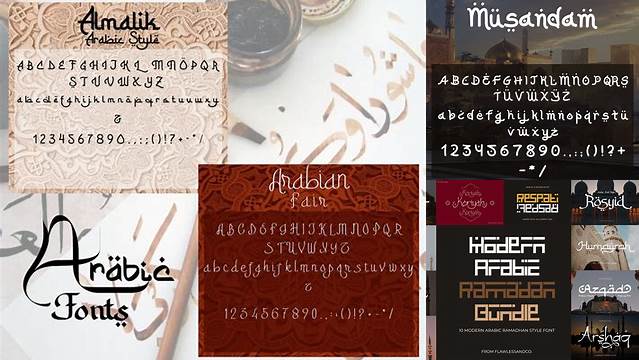
Arabic Fonts For Procreate: Free Downloads & Install Guide
Hey guys! Ever wanted to add that perfect Arabic calligraphy touch to your Procreate masterpieces? You're in the right place! This guide will walk you through everything you need to know about finding, downloading, and installing gorgeous Arabic fonts for Procreate. Get ready to elevate your digital art game!
1. Understanding Arabic Fonts and Procreate Compatibility
2. Where to Find Free Arabic Fonts for Procreate
Okay, let’s talk freebies! Finding quality free Arabic fonts for Procreate can feel like searching for a needle in a haystack, but trust me, they're out there! Websites like Google Fonts, Font Squirrel, and various independent font foundries often offer selections of Arabic fonts that are free for personal or even commercial use. Make sure to carefully check the license agreement for each font to understand its usage restrictions. When browsing these sites, use keywords like "Arabic calligraphy font free download" or "free Arabic script fonts" to narrow down your search. Keep an eye out for fonts that support OpenType features, as these often include advanced typographic options like ligatures and alternate glyphs, which can enhance the beauty and authenticity of your Arabic text. Don't hesitate to explore online design communities and forums, as members often share links to free fonts they've discovered. Participating in these communities can also provide valuable feedback on your font choices and artwork. Be cautious when downloading fonts from unfamiliar websites, as they may contain malware or viruses. Always scan downloaded files with a reputable antivirus program before opening them. Consider creating a dedicated folder on your device to store all your downloaded fonts, making it easier to organize and access them in Procreate.
3. Top Websites for Downloading Premium Arabic Fonts
Sometimes, free just doesn't cut it, right? For truly unique and professional-looking designs, investing in premium Arabic fonts can be a game-changer. Sites like MyFonts, Adobe Fonts, and Linotype offer a vast library of high-quality Arabic fonts, often designed by renowned typographers. While these fonts come at a cost, they typically offer superior quality, broader character sets, and more comprehensive licensing options. When choosing a premium Arabic font, consider its overall aesthetic, readability, and suitability for your specific project. Pay attention to details like kerning, hinting, and character spacing, as these factors can significantly impact the visual appeal of your text. Many premium font foundries offer trial versions or sample characters, allowing you to test the font before committing to a purchase. Take advantage of these opportunities to ensure the font meets your expectations and integrates seamlessly with Procreate. Don't forget to factor in the cost of the font license when budgeting for your design projects. Premium Arabic fonts can be a worthwhile investment, but it's essential to understand the terms of the license agreement and ensure it aligns with your intended use. Explore different font styles and weights to find the perfect match for your creative vision.
6. Best Practices for Using Arabic Calligraphy Fonts in Procreate
Using Arabic calligraphy fonts in Procreate can add a touch of elegance and authenticity to your artwork. However, there are a few best practices to keep in mind. First, choose a font that complements your overall design. Consider the font's style, weight, and readability. Experiment with different font sizes and colors to find the perfect balance. Pay attention to kerning and letter spacing, as these factors can significantly impact the visual appeal of your text. Procreate offers various text editing tools that allow you to adjust these settings. When using Arabic calligraphy fonts, be mindful of cultural sensitivities. Ensure your text is accurate and respectful of the Arabic language and culture. Avoid using fonts in a way that could be considered offensive or inappropriate. Seek feedback from native Arabic speakers to ensure your text is properly translated and conveys the intended message. Practice your calligraphy skills regularly to improve your understanding of letterforms and spacing. Study the work of renowned Arabic calligraphers for inspiration. Consider taking online courses or workshops to learn more about Arabic calligraphy techniques.
7. Exploring Different Styles of Arabic Fonts
Arabic fonts come in a dazzling array of styles, each with its own unique character and history. From the bold geometric forms of Kufic to the flowing curves of Naskh, there's an Arabic font to suit every taste and project. Kufic fonts are known for their angular shapes and strong visual presence, making them ideal for headings and logos. Naskh fonts are more rounded and legible, making them suitable for body text and longer passages. Thuluth fonts are characterized by their elaborate flourishes and decorative elements, making them perfect for ceremonial documents and artistic compositions. Diwani fonts are known for their elegant curves and calligraphic flair, adding a touch of sophistication to any design. Explore different Arabic font styles to discover the ones that resonate with your creative vision. Consider the historical context and cultural significance of each font style to ensure it aligns with your intended message. Experiment with combining different font styles to create visual contrast and interest. Use online resources and design communities to learn more about the nuances of Arabic font styles.
8. Creating Custom Arabic Typography in Procreate
Want to take your Arabic typography to the next level? Procreate offers a range of tools that allow you to create custom Arabic typography designs. Start by selecting a base Arabic font that you like. Then, use Procreate's drawing and editing tools to modify the letterforms, add decorative elements, and create unique ligatures. Experiment with different brush styles and textures to add depth and dimension to your typography. Use Procreate's layer system to build up your design in stages, allowing you to easily make adjustments and refinements. Consider using reference images of Arabic calligraphy to guide your design process. Pay attention to the principles of Arabic calligraphy, such as balance, rhythm, and harmony. Practice your typography skills regularly to improve your understanding of letterforms and spacing. Seek feedback from experienced typographers to refine your designs. Don't be afraid to experiment and push the boundaries of traditional Arabic typography.
9. Using Arabic Fonts for Logos and Branding in Procreate
Arabic fonts can be a powerful tool for creating unique and memorable logos and branding materials. When designing a logo with an Arabic font, consider the overall message and identity of your brand. Choose a font that reflects your brand's values and personality. Experiment with different font sizes, weights, and colors to create a visually appealing logo. Pay attention to kerning and letter spacing to ensure the logo is legible and balanced. Consider incorporating Arabic calligraphy elements into your logo to add a touch of authenticity and cultural relevance. Use Procreate's drawing and editing tools to customize the font and create a unique logo design. Seek feedback from potential customers to ensure the logo resonates with your target audience. Create a style guide that outlines the proper use of your Arabic font logo across different media. Use your Arabic font logo consistently in all your branding materials to build brand recognition and loyalty.
10. Designing Arabic Posters and Flyers with Procreate Fonts
Procreate is an excellent tool for designing Arabic posters and flyers that grab attention and convey your message effectively. When designing a poster or flyer with an Arabic font, consider the overall layout and composition. Choose a font that is legible and visually appealing. Use a combination of different font sizes and styles to create visual hierarchy. Incorporate eye-catching graphics and images to enhance the poster's impact. Use Procreate's layer system to organize your design elements and make adjustments easily. Pay attention to color contrast and readability to ensure your message is clear and easy to understand. Use Arabic calligraphy elements to add a touch of elegance and cultural relevance. Seek feedback from potential viewers to ensure the poster is effective and engaging. Print your poster or flyer at a high resolution to ensure it looks professional and crisp. Distribute your poster or flyer in strategic locations to reach your target audience.
11. Creating Arabic Social Media Graphics with Procreate Fonts
In today's digital world, social media graphics are essential for promoting your brand and engaging with your audience. Procreate makes it easy to create stunning Arabic social media graphics that stand out from the crowd. When designing a social media graphic with an Arabic font, consider the platform you're designing for. Each platform has its own unique dimensions and aspect ratios. Choose a font that is legible and visually appealing on small screens. Use a combination of different font sizes and styles to create visual hierarchy. Incorporate eye-catching graphics and images to capture attention. Use Procreate's layer system to organize your design elements and make adjustments easily. Pay attention to color contrast and readability to ensure your message is clear and easy to understand. Use Arabic calligraphy elements to add a touch of elegance and cultural relevance. Use relevant hashtags to increase the visibility of your social media graphic. Schedule your social media posts strategically to reach your target audience at the optimal time.
12. Arabic Font Licensing: What You Need to Know
Before you start using downloaded Arabic fonts in your projects, it's crucial to understand font licensing. Font licenses dictate how you can legally use a font. Some fonts are free for personal use but require a commercial license for business purposes. Other fonts have more restrictive licenses that limit how you can modify or redistribute them. Always read the font license agreement carefully before using a font. Pay attention to the terms and conditions related to commercial use, embedding, and modification. If you're unsure about the terms of a font license, contact the font designer or foundry for clarification. Using a font without the proper license can result in legal consequences. Keep records of all your font licenses for future reference. Consider using a font management tool to help you track your font licenses and usage.
13. Mixing Arabic and Latin Fonts in Procreate
Combining Arabic and Latin fonts in Procreate can create visually interesting and dynamic designs. However, it's important to do it carefully to ensure readability and visual harmony. Choose Arabic and Latin fonts that complement each other in terms of style, weight, and x-height. Pay attention to the overall balance and proportion of the text. Use a consistent baseline and cap height for both fonts. Avoid using too many different fonts in a single design. Use color and contrast to differentiate between the Arabic and Latin fonts. Consider using a grid system to align the text and create a sense of order. Seek feedback from others to ensure the design is legible and visually appealing. Experiment with different font combinations to find the perfect balance. Use online resources and design communities to learn more about typography principles.
14. The History and Evolution of Arabic Calligraphy
Arabic calligraphy is a rich and ancient art form with a fascinating history. It has evolved over centuries, with different styles and techniques emerging in various regions of the Arab world. The earliest form of Arabic calligraphy was Kufic, which was characterized by its angular shapes and geometric forms. Over time, other styles emerged, such as Naskh, Thuluth, and Diwani, each with its own unique characteristics. Arabic calligraphy has been used for a variety of purposes, including religious texts, poetry, and decorative arts. It has also played a significant role in preserving and transmitting Arabic culture and knowledge. Today, Arabic calligraphy continues to be a vibrant and evolving art form, with contemporary artists pushing the boundaries of tradition and innovation. Study the history of Arabic calligraphy to gain a deeper appreciation for its beauty and significance.
15. Understanding the Different Arabic Script Styles
Understanding the different Arabic script styles is essential for choosing the right font for your project. Each script style has its own unique characteristics and historical context. Kufic is characterized by its angular shapes and geometric forms. Naskh is more rounded and legible, making it suitable for body text. Thuluth is known for its elaborate flourishes and decorative elements. Diwani is distinguished by its elegant curves and calligraphic flair. Ruq'ah is a simplified and condensed script used for everyday writing. Understanding the nuances of each Arabic script style will help you choose the font that best reflects your design goals. Consider the historical context and cultural significance of each script style. Experiment with different script styles to find the ones that resonate with your creative vision. Use online resources and design communities to learn more about the different Arabic script styles.
16. Optimizing Arabic Text for Readability in Procreate
Ensuring that your Arabic text is readable in Procreate is crucial for effective communication. Pay attention to factors such as font size, kerning, and line spacing. Choose a font size that is appropriate for the viewing distance. Adjust the kerning to ensure that the letters are spaced evenly. Increase the line spacing to improve readability. Use a high contrast color combination to make the Arabic text stand out from the background. Avoid using too many decorative elements that can distract from the text. Seek feedback from others to ensure the Arabic text is legible and easy to understand. Use online tools to check the readability of your Arabic text. Consider the cultural context and target audience when optimizing Arabic text for readability.
17. Adding Shadows and Effects to Arabic Fonts in Procreate
Procreate offers a variety of tools for adding shadows and effects to Arabic fonts, allowing you to create visually stunning typography. Experiment with different shadow styles, such as drop shadows, inner shadows, and perspective shadows. Adjust the shadow's opacity, blur, and distance to achieve the desired effect. Use Procreate's blending modes to create unique and interesting effects. Consider adding textures and gradients to the Arabic fonts to add depth and dimension. Use clipping masks to confine the effects to the letters themselves. Seek inspiration from other designers and artists. Use online tutorials to learn new techniques and tricks. Don't be afraid to experiment and push the boundaries of creativity.
18. Using Arabic Fonts in Animation with Procreate
Procreate is a powerful tool for creating animations with Arabic fonts. You can use Arabic fonts to create animated titles, text effects, and calligraphic compositions. Experiment with different animation techniques, such as frame-by-frame animation, motion tweening, and path animation. Use Procreate's animation assist feature to help you create smooth and seamless animations. Consider adding sound effects and music to enhance the animation's impact. Use Arabic calligraphy elements to add a touch of elegance and cultural relevance. Seek inspiration from other animators and artists. Use online tutorials to learn new animation techniques. Share your animations on social media and online platforms.
19. Creating Arabic Patterns and Backgrounds with Procreate Fonts
Arabic fonts can be used to create intricate patterns and backgrounds in Procreate. You can repeat and tile Arabic letters and words to create visually stunning designs. Experiment with different font sizes, colors, and orientations. Use Procreate's clipping masks to confine the patterns to specific shapes or areas. Consider adding textures and gradients to the patterns to add depth and dimension. Use Arabic calligraphy elements to add a touch of elegance and cultural relevance. Seek inspiration from Islamic art and design. Use online resources and tutorials to learn new pattern-making techniques. Use your Arabic font patterns and backgrounds in a variety of creative projects.
20. Resources for Learning Arabic Calligraphy Online
There are many excellent resources available online for learning Arabic calligraphy. Websites like Skillshare, Udemy, and Coursera offer comprehensive courses taught by experienced calligraphers. YouTube channels like Artsy and The Khan Academy offer free tutorials and demonstrations. Online forums and communities provide opportunities to connect with other Arabic calligraphy enthusiasts. Books and articles on Arabic calligraphy offer in-depth knowledge and historical context. Museums and cultural institutions often host exhibitions and workshops on Arabic calligraphy. Take advantage of these resources to improve your skills and knowledge of Arabic calligraphy.
21. The Influence of Arabic Calligraphy on Modern Design
Arabic calligraphy has had a profound influence on modern design. Its elegant forms and intricate patterns have inspired designers in a variety of fields, including graphic design, typography, and architecture. Arabic calligraphy elements are often incorporated into logos, posters, and branding materials. Arabic fonts are used in websites, apps, and other digital media. The principles of Arabic calligraphy, such as balance, rhythm, and harmony, are applied to modern design principles. Explore the work of designers who have been influenced by Arabic calligraphy. Study the history of Arabic calligraphy to understand its enduring legacy. Use Arabic calligraphy elements in your own designs to add a touch of elegance and cultural relevance.
22. Tips for Choosing the Right Arabic Font for Your Project
Choosing the right Arabic font is crucial for the success of your project. Consider the overall tone and message you want to convey. Choose a font that is legible and visually appealing. Pay attention to the font's style, weight, and character set. Ensure that the font supports the specific Arabic script you need. Test the font in your design software before committing to it. Seek feedback from others to ensure the font is effective and appropriate. Consider the cultural context and target audience when choosing an Arabic font. Don't be afraid to experiment with different fonts to find the perfect match.
23. Advanced Techniques for Working with Arabic Text in Procreate
Procreate offers a variety of advanced techniques for working with Arabic text. You can use clipping masks to confine the text to specific shapes or areas. You can use blending modes to create unique and interesting effects. You can use gradients and textures to add depth and dimension to the text. You can use shadows and highlights to create a sense of realism. You can use animation techniques to bring the Arabic text to life. Experiment with these techniques to create visually stunning and dynamic typography. Seek inspiration from other designers and artists. Use online tutorials to learn new techniques and tricks.
24. Common Mistakes to Avoid When Using Arabic Fonts
There are several common mistakes that designers make when using Arabic fonts. Using a font that is not legible. Using a font that is not appropriate for the context. Using too many different fonts in a single design. Ignoring kerning and letter spacing. Not considering the cultural context. Not testing the font in different environments. Not getting feedback from others. Avoiding these mistakes will help you create more effective and visually appealing designs with Arabic fonts.
25. The Future of Arabic Typography and Design
The future of Arabic typography and design is bright. New technologies and creative approaches are constantly pushing the boundaries of what is possible. More and more designers are incorporating Arabic calligraphy elements into their work. There is a growing appreciation for the beauty and cultural significance of Arabic typography. As technology continues to evolve, we can expect to see even more innovative and exciting developments in the field of Arabic typography and design. Stay informed about the latest trends and technologies. Experiment with new techniques and approaches. Embrace the rich history and cultural heritage of Arabic typography.
26. Where to Find Inspiration for Arabic Font Designs
Looking for inspiration for your Arabic font designs? Look no further than the rich history and cultural heritage of the Arab world. Explore Islamic art and architecture for intricate patterns and geometric designs. Study the work of renowned Arabic calligraphers for inspiration on letterforms and composition. Visit museums and cultural institutions to see examples of Arabic calligraphy in its historical context. Browse online design communities and social media platforms for contemporary Arabic font designs. Immerse yourself in the beauty and elegance of Arabic calligraphy to spark your creativity.
27. How to Create Ligatures with Arabic Fonts in Procreate
Ligatures are essential for creating beautiful and authentic Arabic typography. Procreate makes it easy to create custom ligatures with Arabic fonts. Start by selecting the letters you want to combine into a ligature. Use Procreate's drawing and editing tools to modify the letterforms and create a seamless connection. Pay attention to the flow and balance of the ligature. Experiment with different styles and techniques to create unique and visually appealing ligatures. Seek inspiration from traditional Arabic calligraphy. Use online resources and tutorials to learn more about ligature design.
28. Exploring Geometric Kufic Fonts in Procreate
Geometric Kufic fonts are a striking and distinctive style of Arabic calligraphy. Characterized by their angular shapes and precise geometric forms, Kufic fonts are often used for headings, logos, and decorative elements. Procreate provides a versatile platform for exploring and experimenting with geometric Kufic fonts. Use Procreate's drawing and editing tools to create custom Kufic designs. Experiment with different geometric patterns and compositions. Consider the historical context and cultural significance of Kufic fonts. Seek inspiration from Islamic art and architecture.
29. Mastering Diwani Calligraphy Fonts in Procreate
Diwani calligraphy fonts are known for their elegant curves and calligraphic flair. Characterized by their flowing lines and decorative flourishes, Diwani fonts are often used for formal documents, invitations, and artistic compositions. Mastering Diwani calligraphy fonts in Procreate requires practice and attention to detail. Use Procreate's drawing and editing tools to create custom Diwani designs. Pay attention to the flow and rhythm of the letters. Experiment with different calligraphic techniques. Seek inspiration from master Diwani calligraphers.
30. Designing with Thuluth Calligraphy Fonts in Procreate
Thuluth calligraphy fonts are characterized by their elaborate flourishes and decorative elements. Often used for ceremonial documents, religious texts, and artistic compositions, Thuluth fonts exude a sense of grandeur and sophistication. Designing with Thuluth calligraphy fonts in Procreate requires careful planning and execution. Use Procreate's drawing and editing tools to create custom Thuluth designs. Pay attention to the balance and harmony of the composition. Experiment with different decorative elements and flourishes. Seek inspiration from traditional Thuluth calligraphy. Embrace the beauty and elegance of Thuluth fonts in your creative projects.